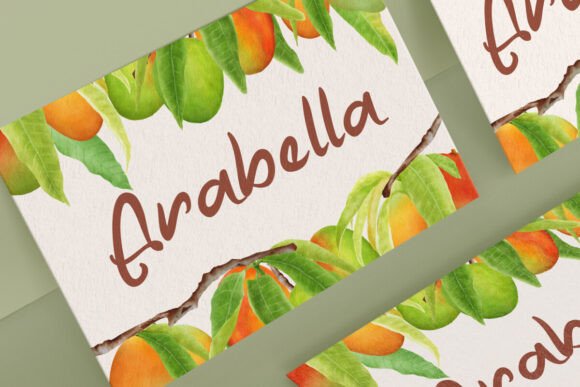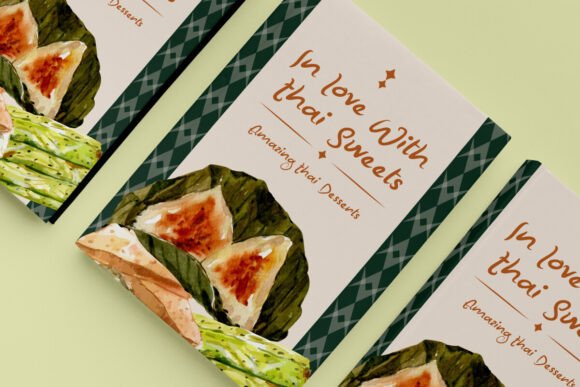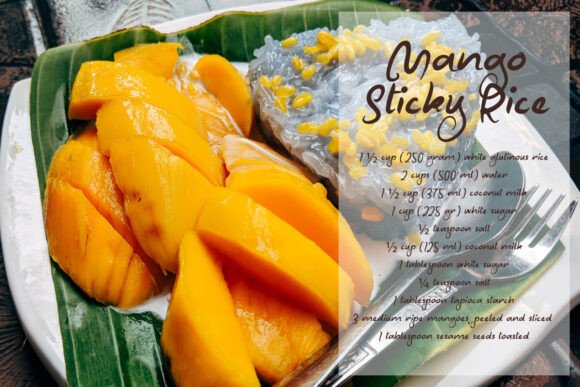
Mango Delight Font
Mango Delight Font is a unique stylish brush written font created by NoahType. Every stroke made for this font is used with care and aesthetics, you can find it on the line that hangs down like a mango shape. It will be suitable for any industries, such as advertisement, café, event or festival, fashion, florist, printing, publishing, restaurant, and more!